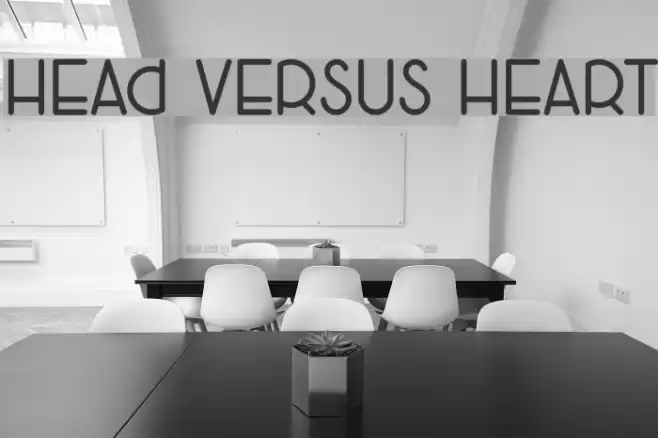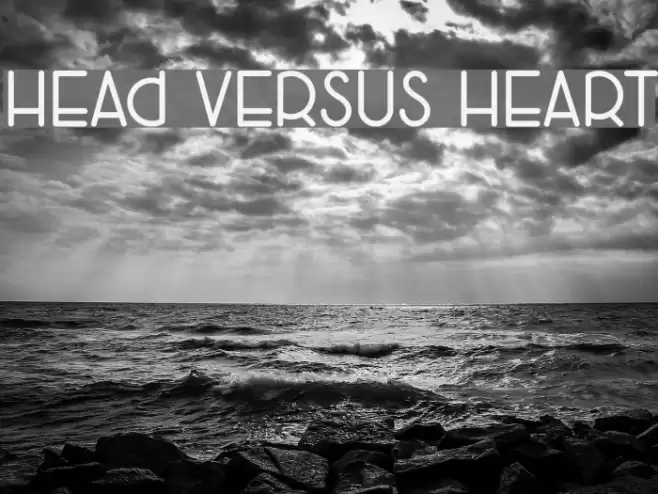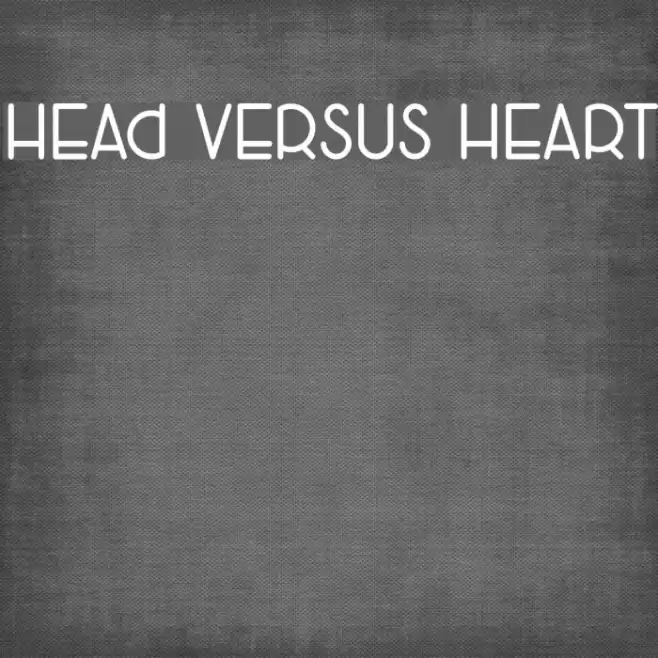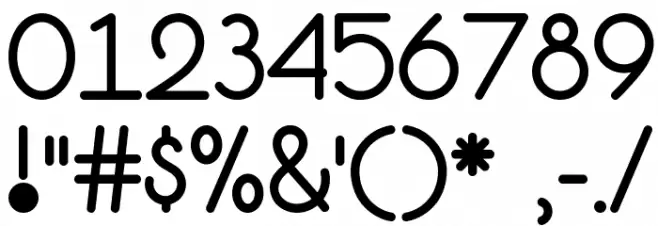
Head Versus Heart Font
Head Versus Heart Description
This font features a clean and modern sans-serif design with rounded edges, giving it a friendly and approachable appearance. The characters are evenly spaced, providing a balanced and harmonious look. The uppercase and lowercase letters maintain a consistent style, with smooth curves and a uniform stroke width that enhances readability. The numerals are clear and distinct, making them suitable for various applications. Special characters are well-integrated, maintaining the overall aesthetic of the font. Its simplicity and clarity make it versatile for both digital and print media.
A modern, rounded sans-serif font with a clean and approachable design from Uncategorized fonts.